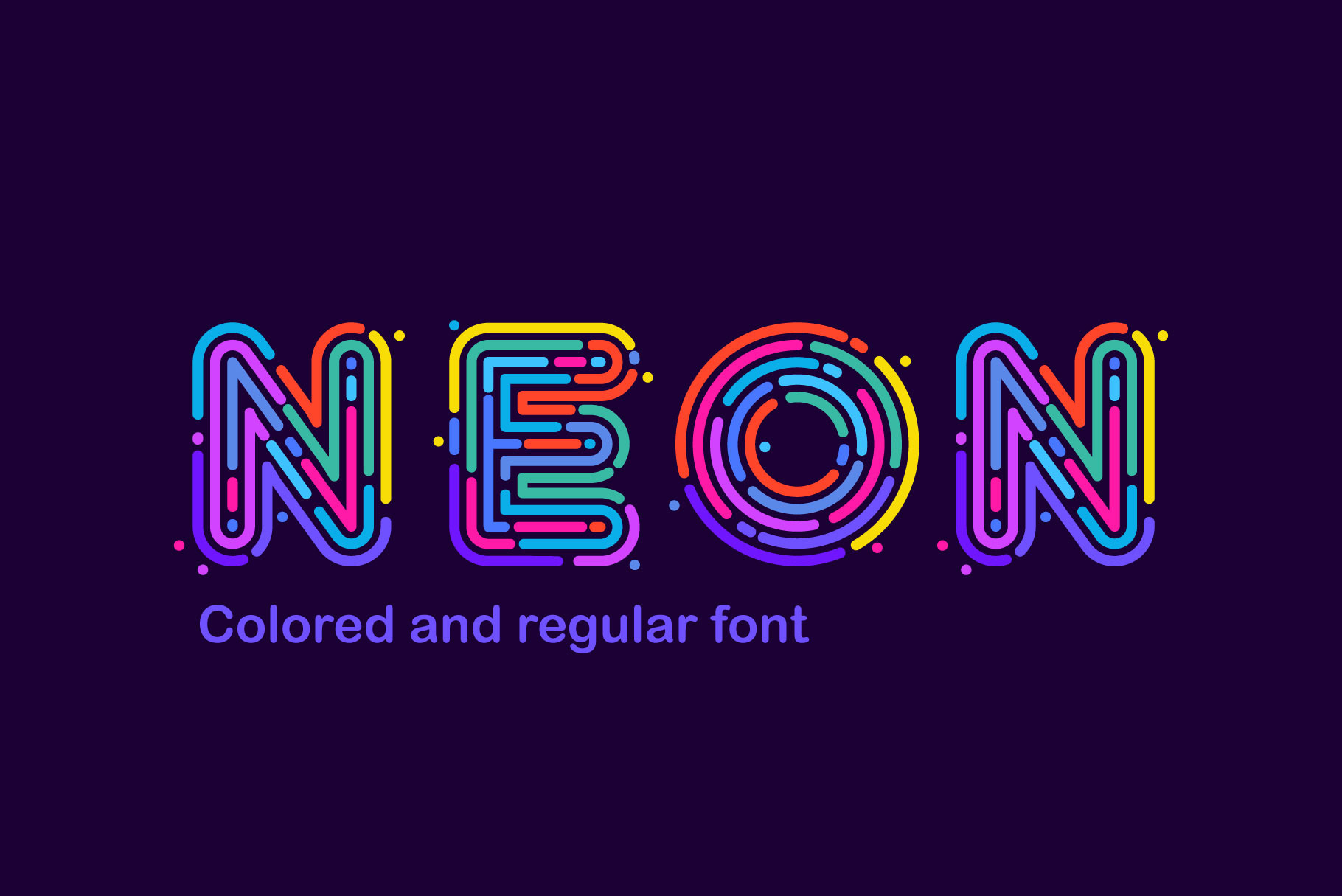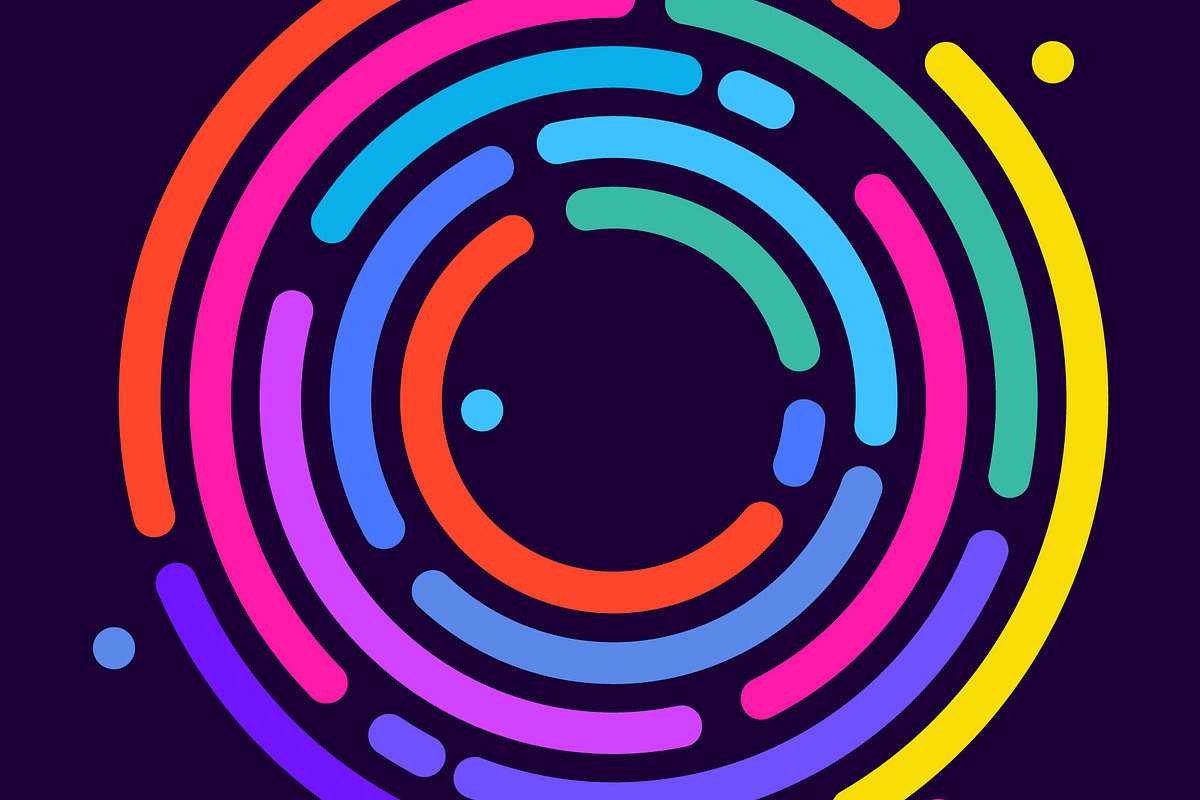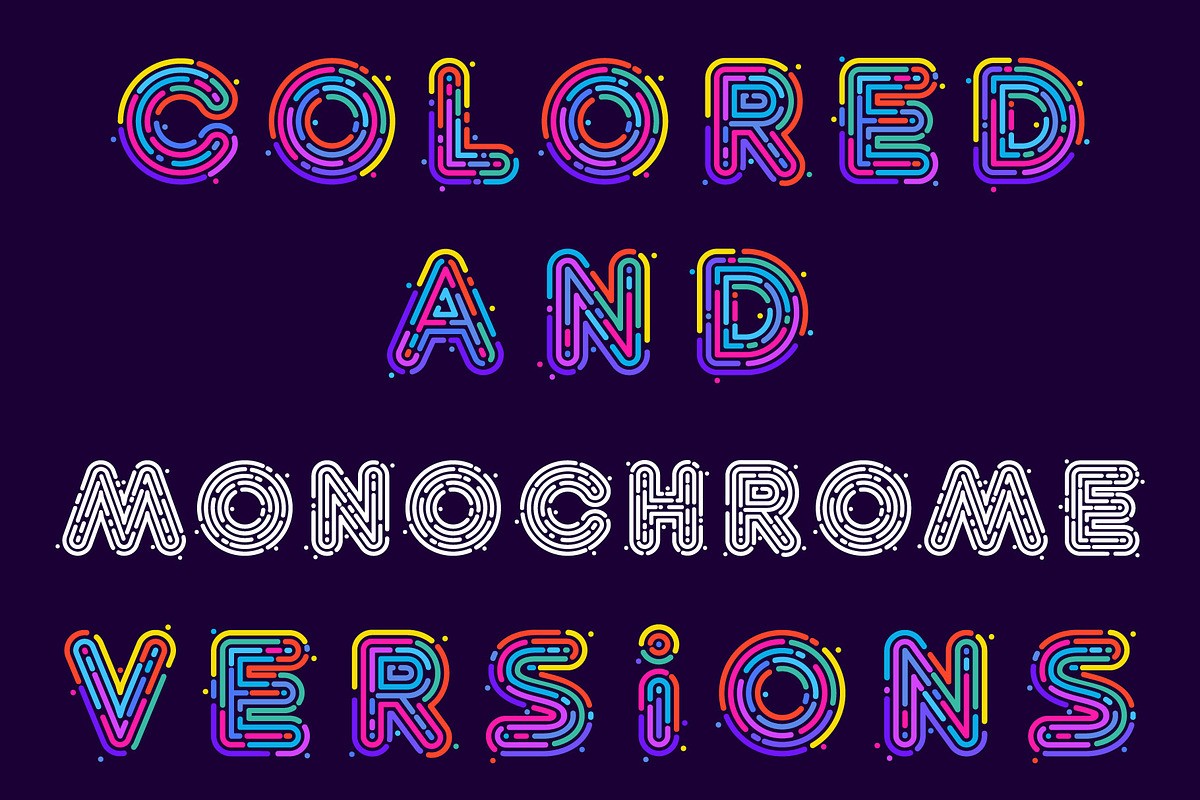
Neon color font
Alphabet letters formed by neon lines.
Uppercase letters from A to Z (26 characters) + numbers and punctuation marks. Typeface for casino labels, nightlife headlines, bright posters, fashion cards etc.